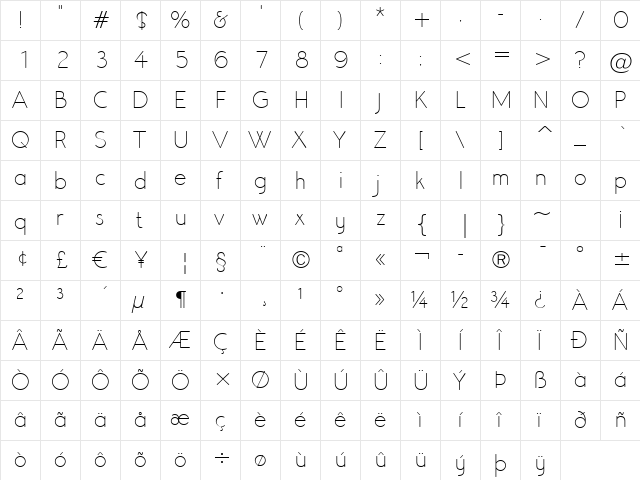
Register Sans BTN Lt Regular
Design Context for Register Sans BTN Lt Typeface
Register Sans BTN Lt takes a measured approach to typography — its balanced proportions and neutral character make it a reliable workhorse for both digital and print work. The delicate stroke weight brings airiness and refinement to layouts.